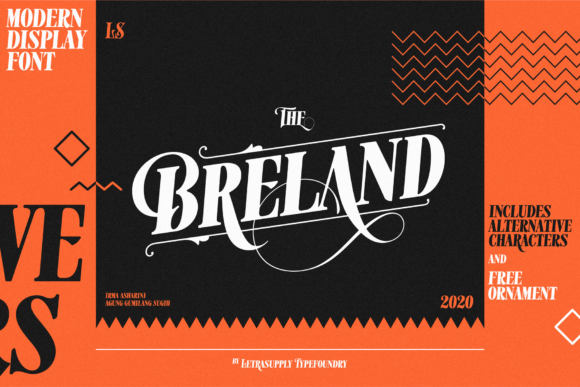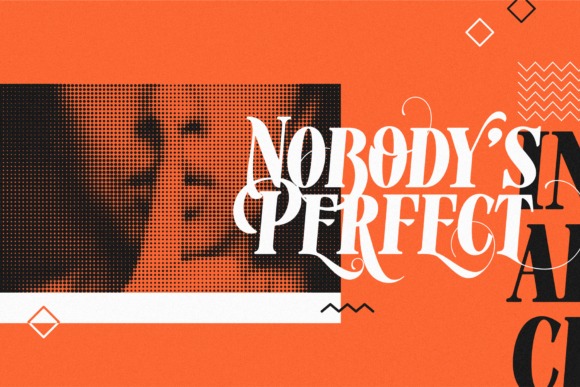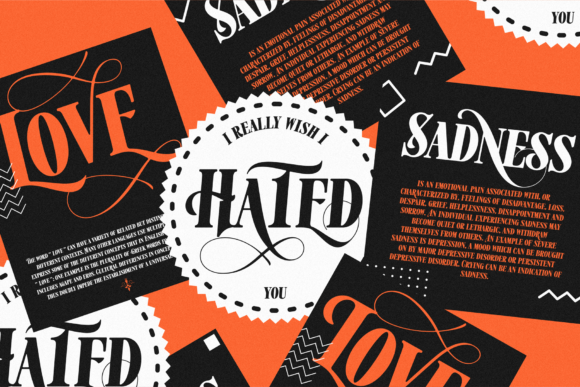
Breland Font
Breland is a gorgeous high-contrast display font with a distinct editorial feel. It will add a hint of sophistication to any design idea.